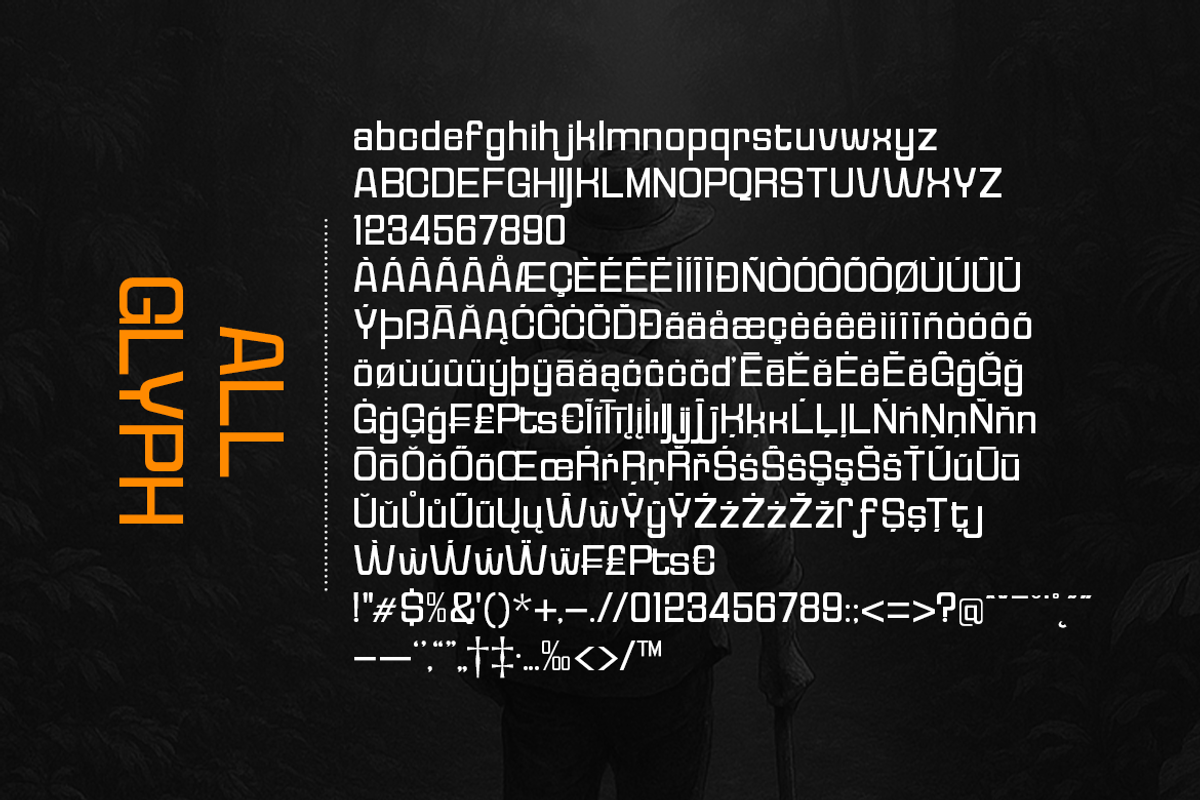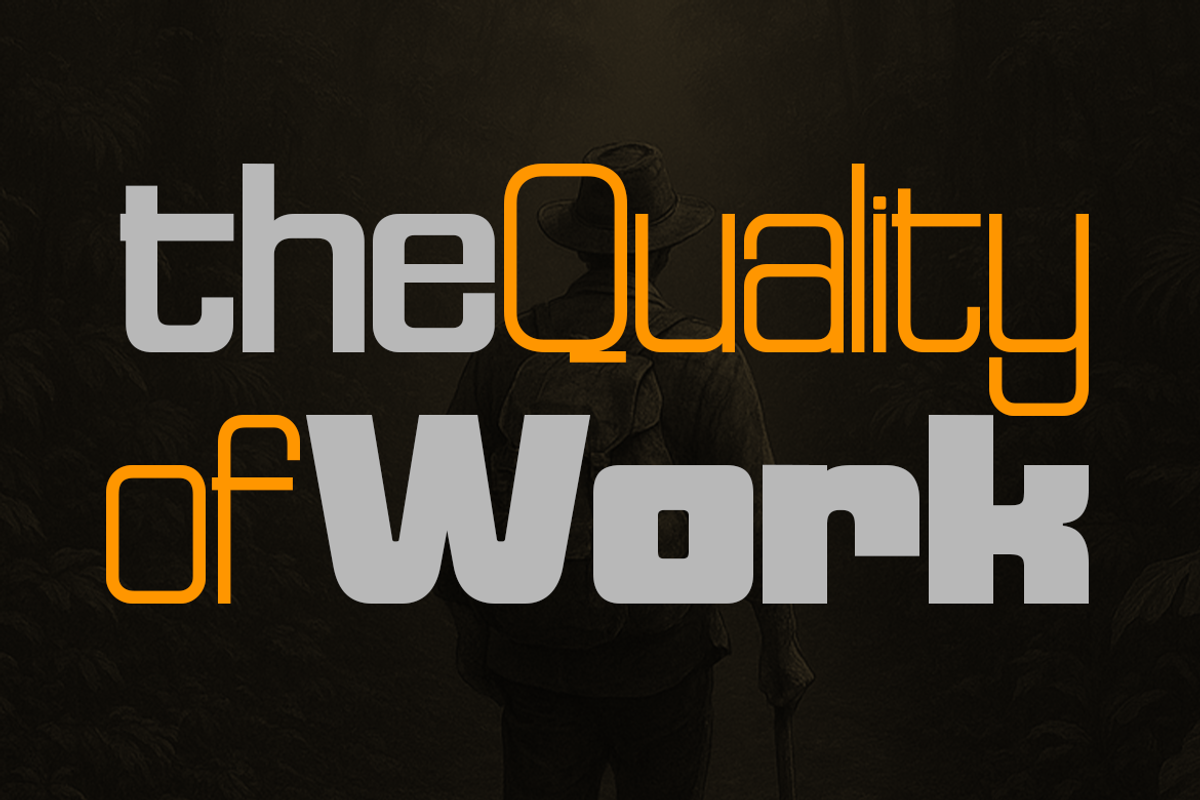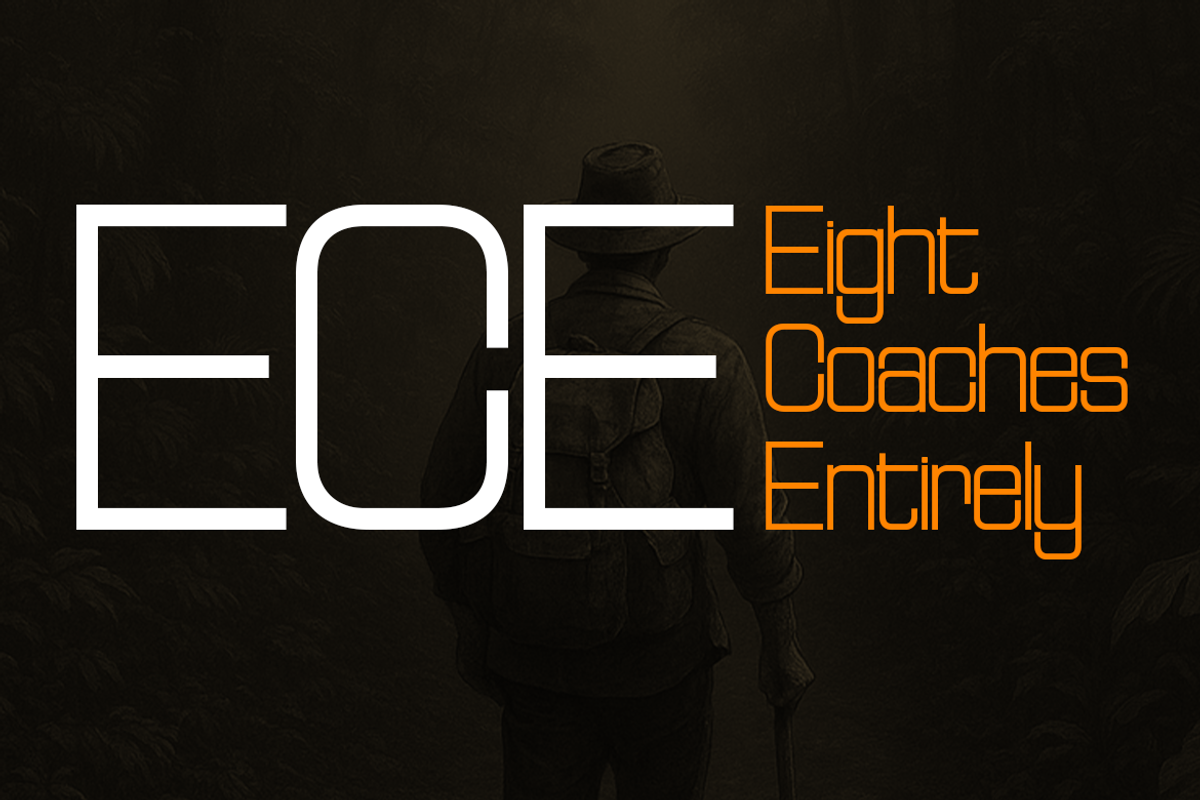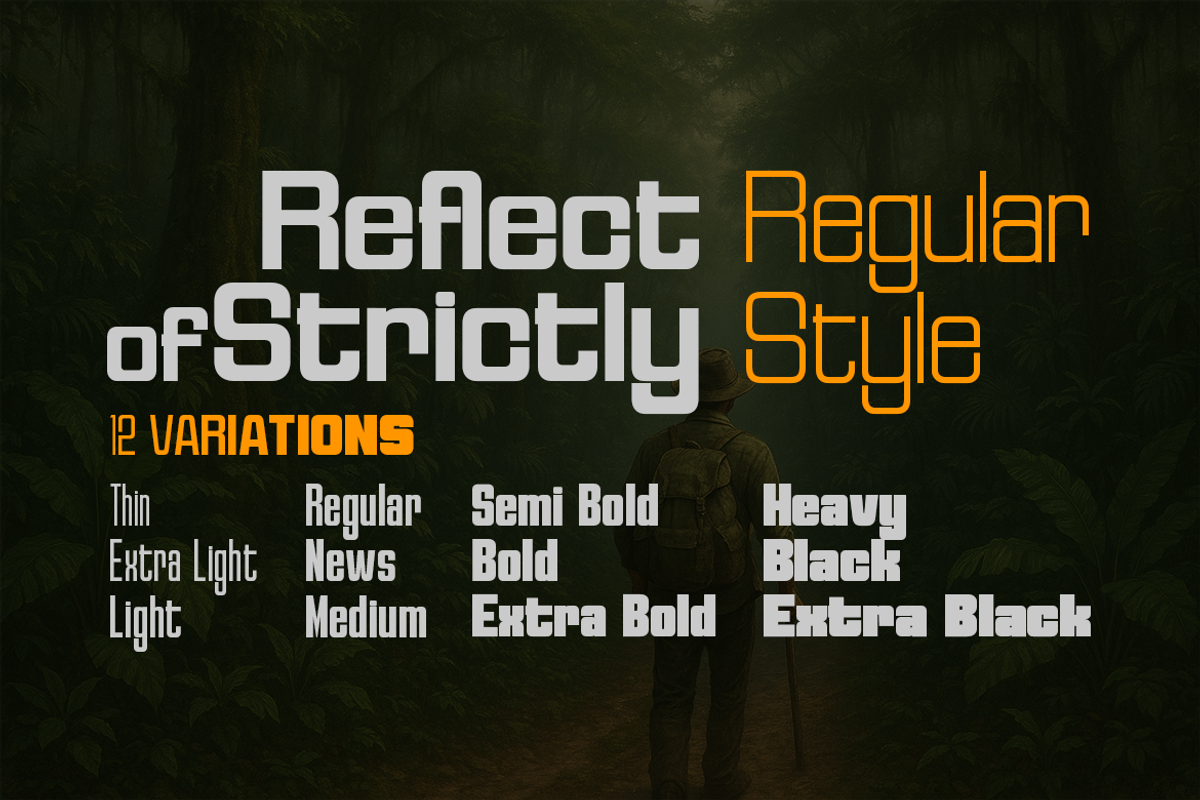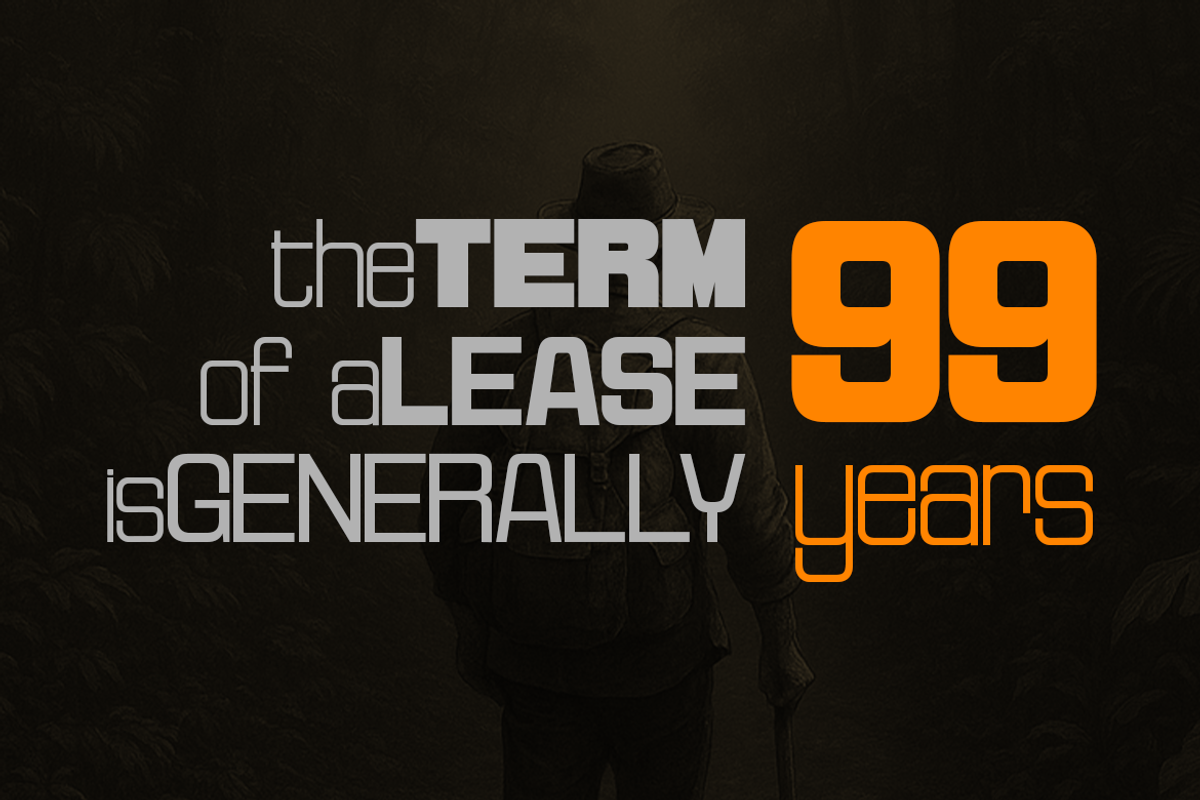
Reflect of Strictly Normal
Reflect of Strictly Normal — 12 Upright Weights (Thin–Extra Black)
Reflect of Strictly Normal is the core and most balanced style of the entire family. It features harmonious proportions, high legibility, and a strong geometric foundation — making it a versatile workhorse for both display and professional design applications.
This width reflects the purest expression of the font’s DNA: clean, disciplined, and modern. It adapts well to large headlines, responsive digital layouts, or tightly structured corporate environments.
Ideal for: — Hero titles and main display text — Branding and logo design — Corporate identity systems — Editorial layouts and magazine design — Advertising and high-impact visuals — Digital product and web design
With 12 upright weights from Thin to Extra Black, the Normal width offers complete typographic control, from delicate minimal styles to dramatic bold statements.